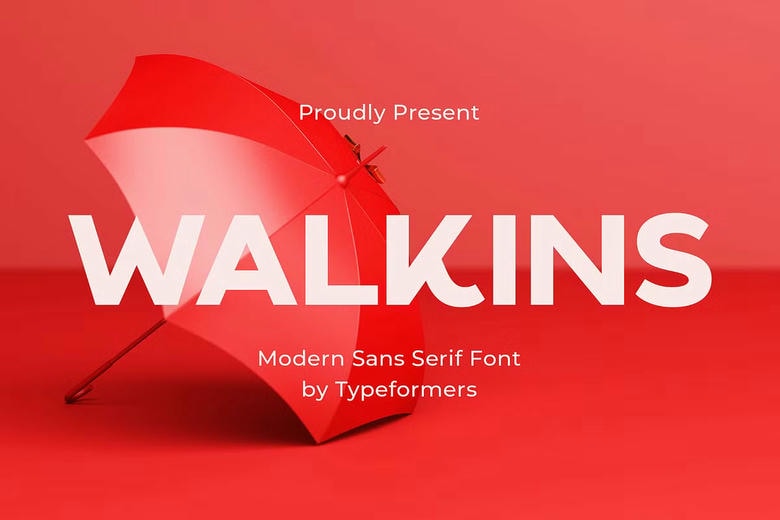
Walkins Font
Walkins Font – Modern Sans Serif. It follows clean cut lines and it should be fixed for headings, logotype, brands, magazines, accessories, and invitations.
Walkins Modern Sans Serif Font